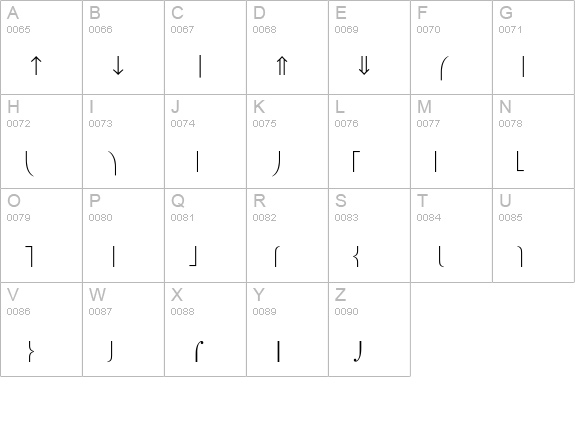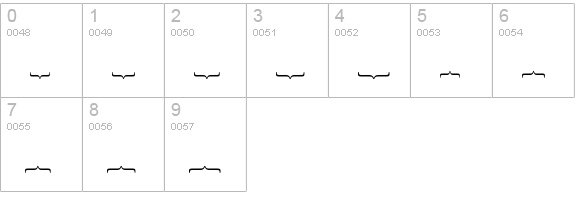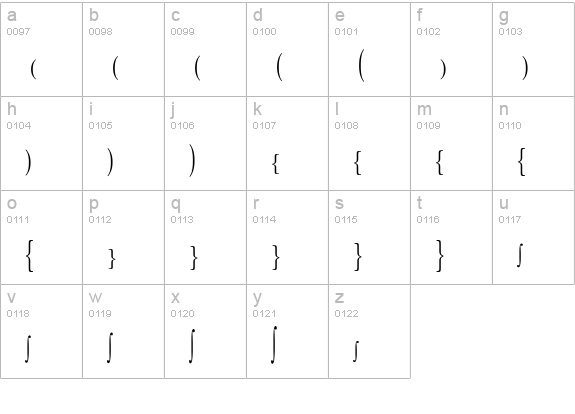
Fences Font Details
Fences font is a modern and stylish typeface that adds a touch of elegance to any design project. Its clean lines and sleek curves make it perfect for a wide range of applications, from logos and branding to invitations and social media graphics. The versatility of Fences font allows it to be used in both digital and print designs, ensuring that your message is always conveyed with clarity and style. What sets Fences font apart is that it is available for free download at FontsMarket.com. This means that you can access this high-quality typeface without any cost, making it a valuable addition to your font library. Whether you are a professional designer or a hobbyist looking to elevate your projects, Fences font is a fantastic choice that will help you stand out from the crowd. Download it today and see the difference it can make in your designs!